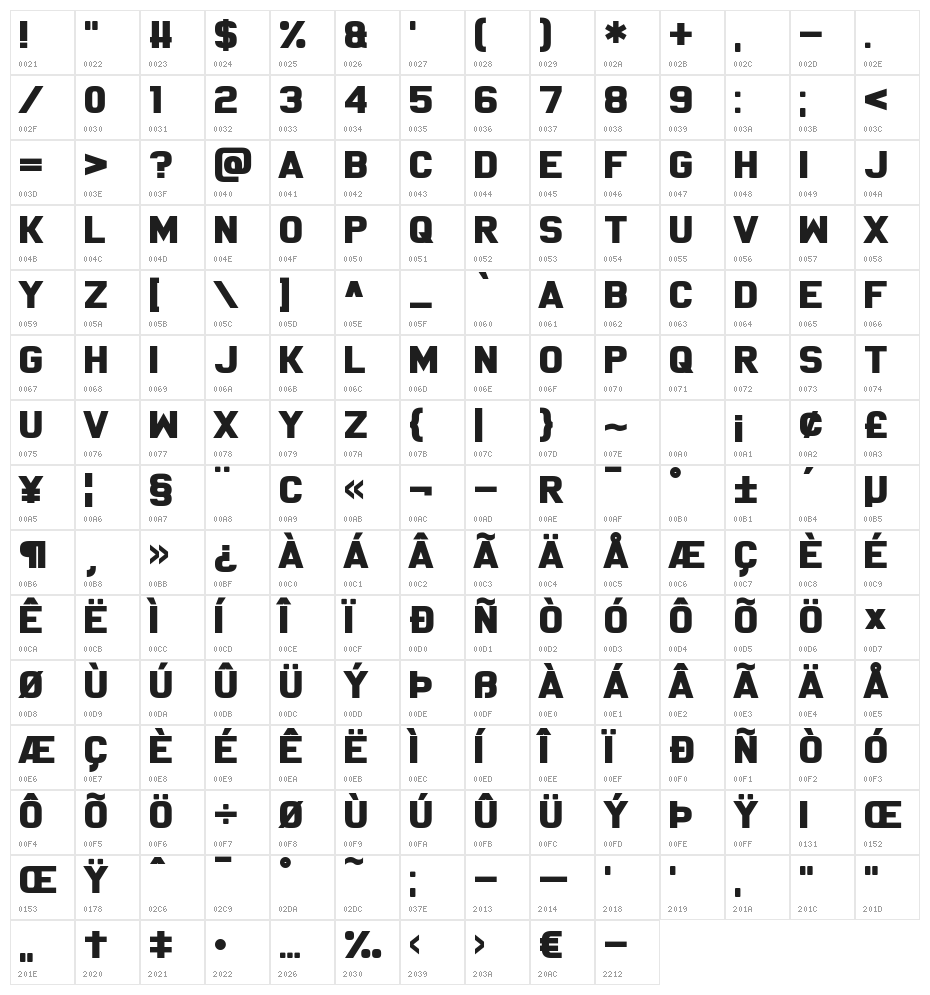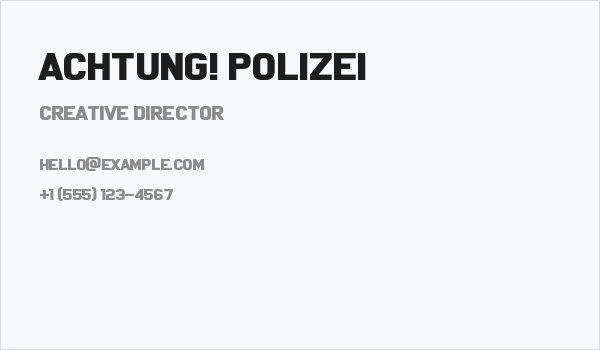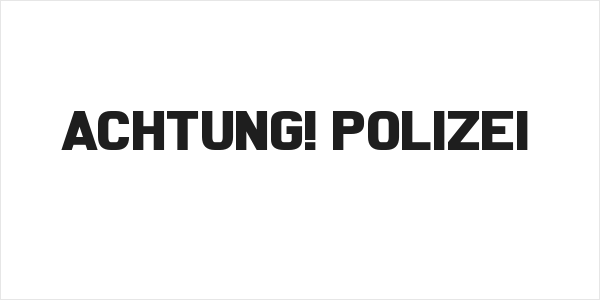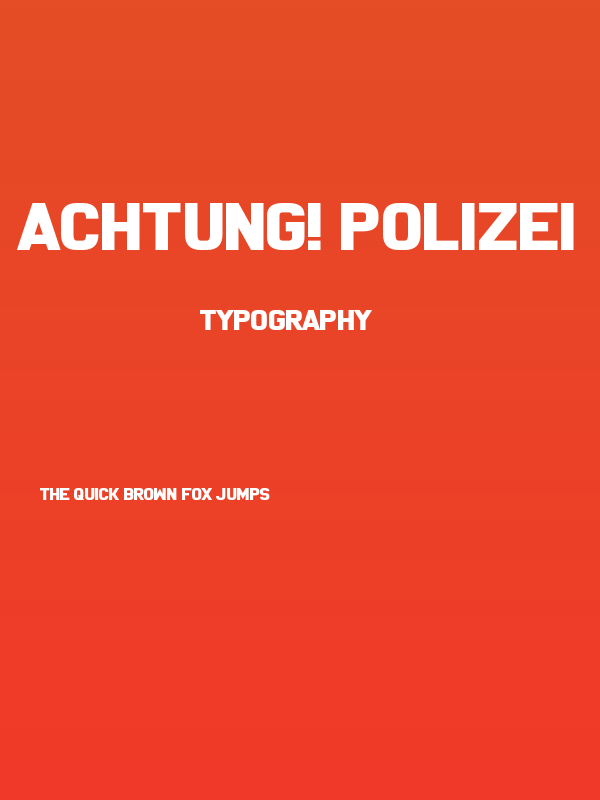
Achtung! Polizei Font
Achtung! Polizei Description
This font features a bold, geometric sans-serif style with strong, clean lines and a modern aesthetic. The characters are uniformly thick, providing a robust and impactful appearance. The uppercase letters are particularly striking, with a consistent height and width that convey a sense of stability and strength. The numbers and special characters maintain the same boldness, ensuring uniformity across all glyphs. This font is highly legible, making it suitable for various applications where clarity and emphasis are required. The overall design is straightforward yet powerful, ideal for making a statement.
| Use Case | Headlines, Logos, Signage |
| Proposed Projects | Ideal for branding, signage, posters, and headlines where a strong visual impact is needed. |